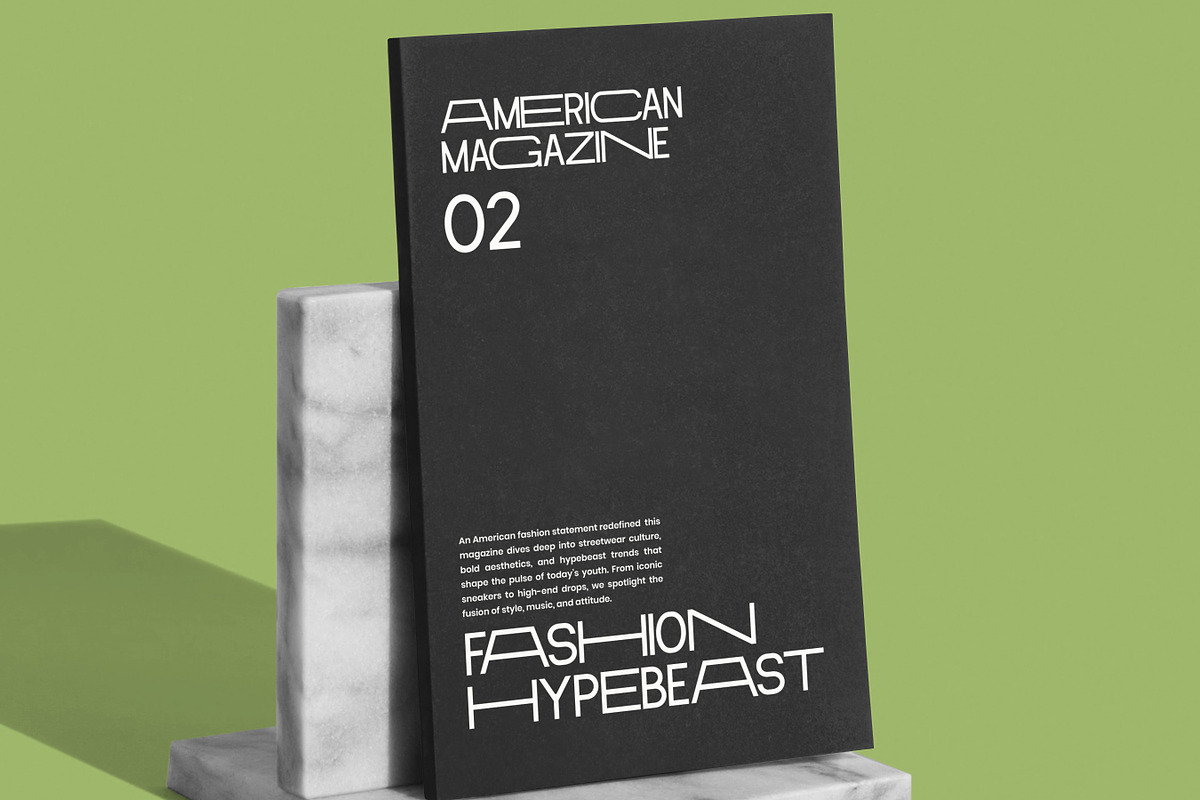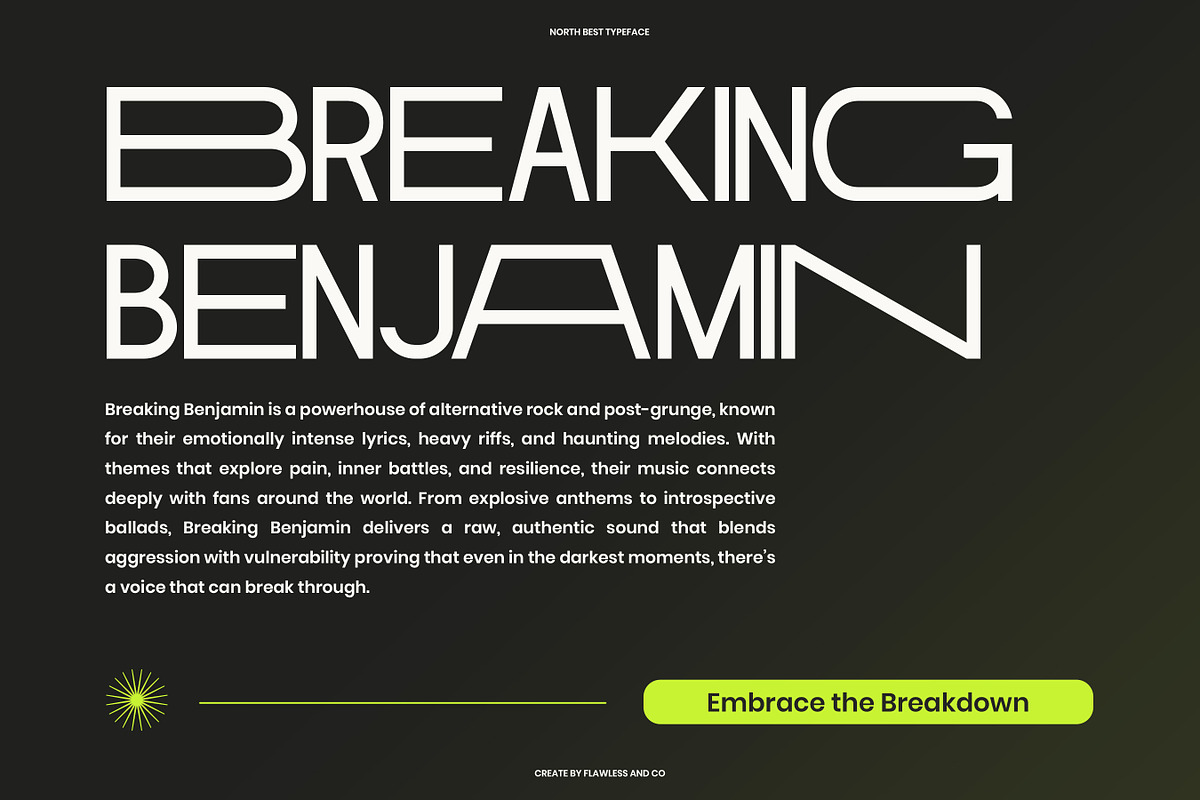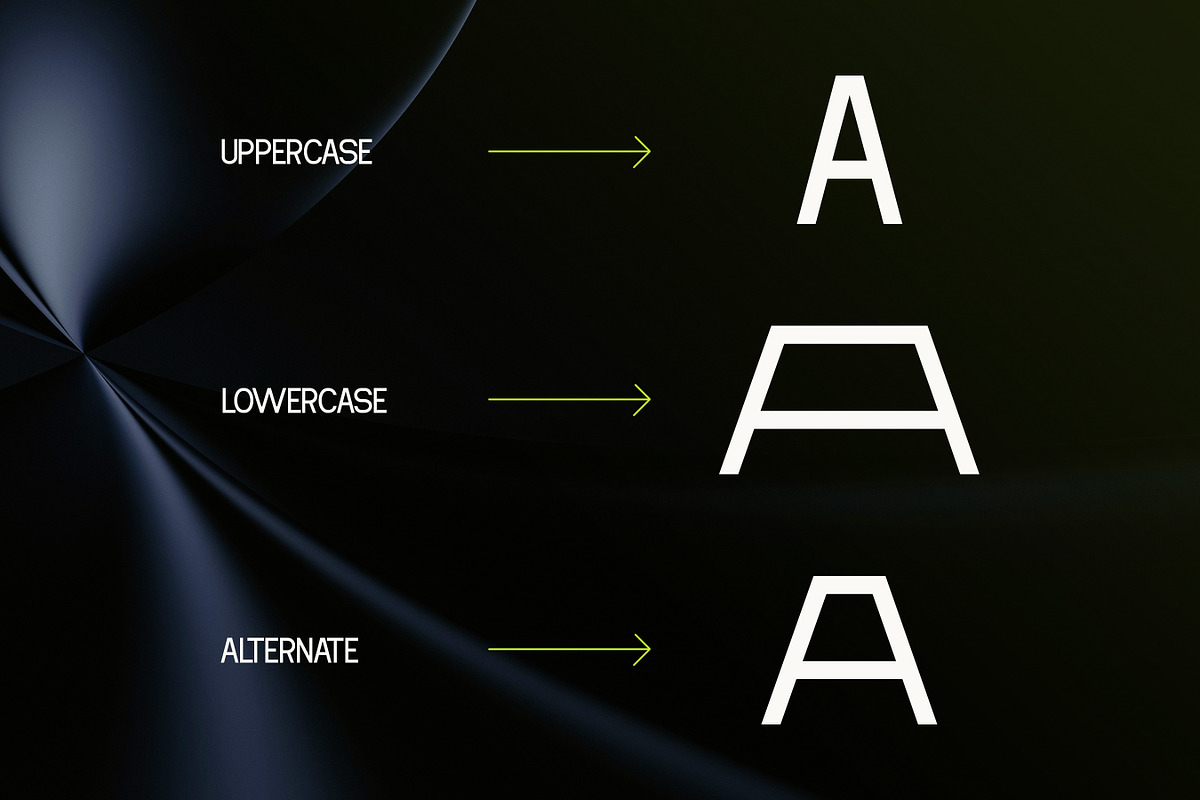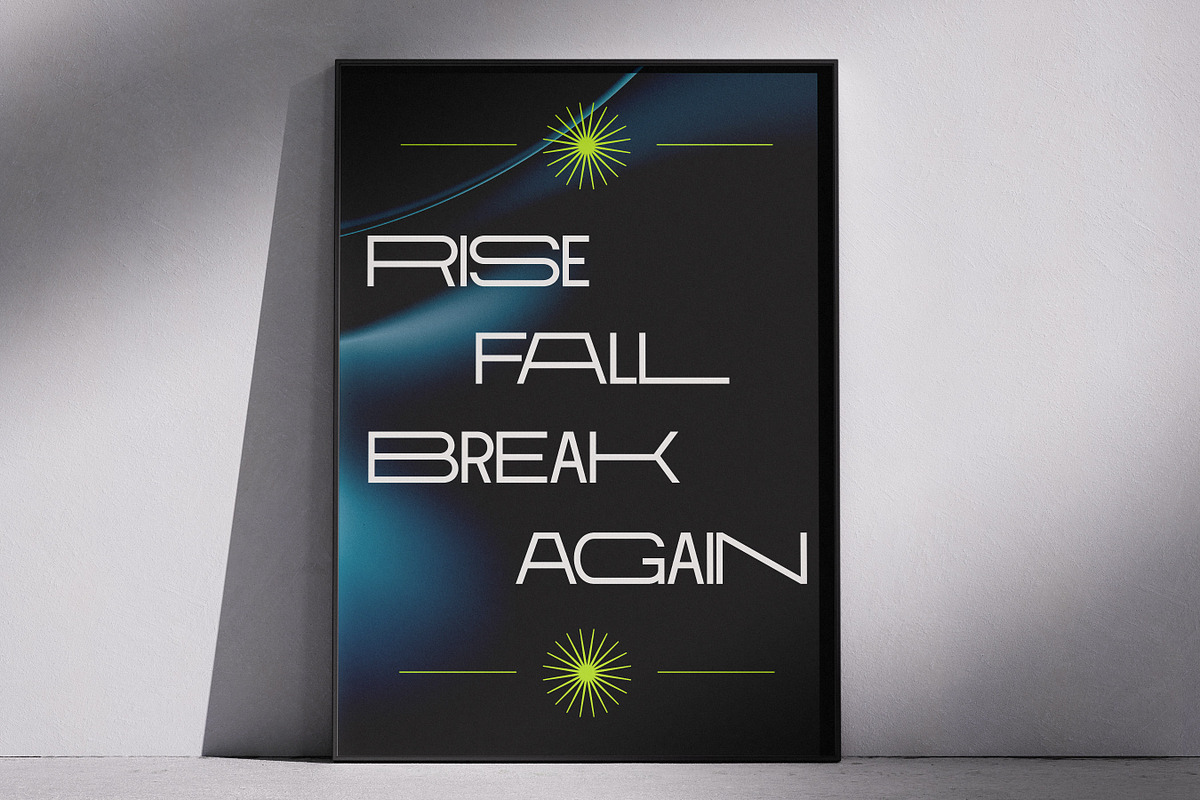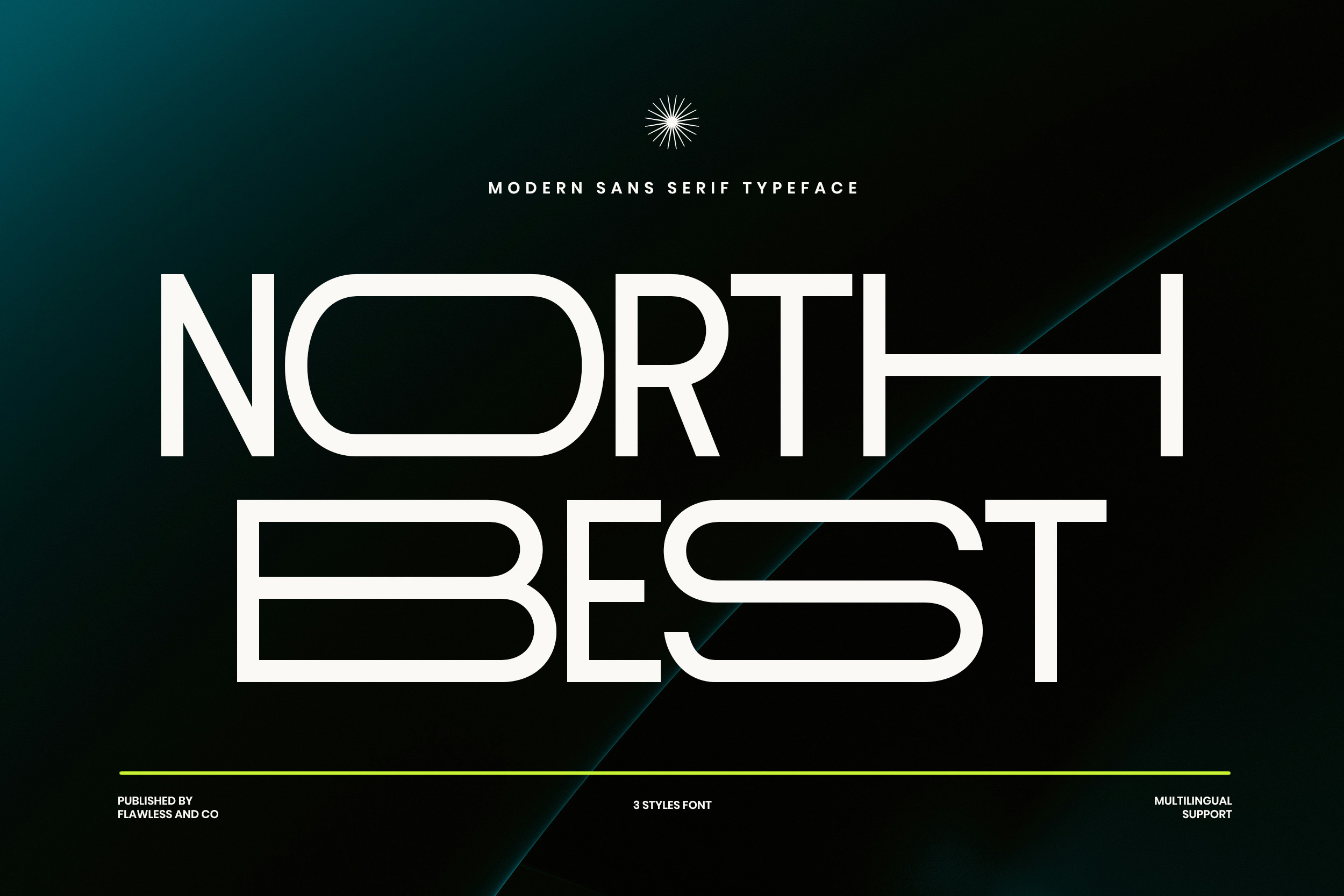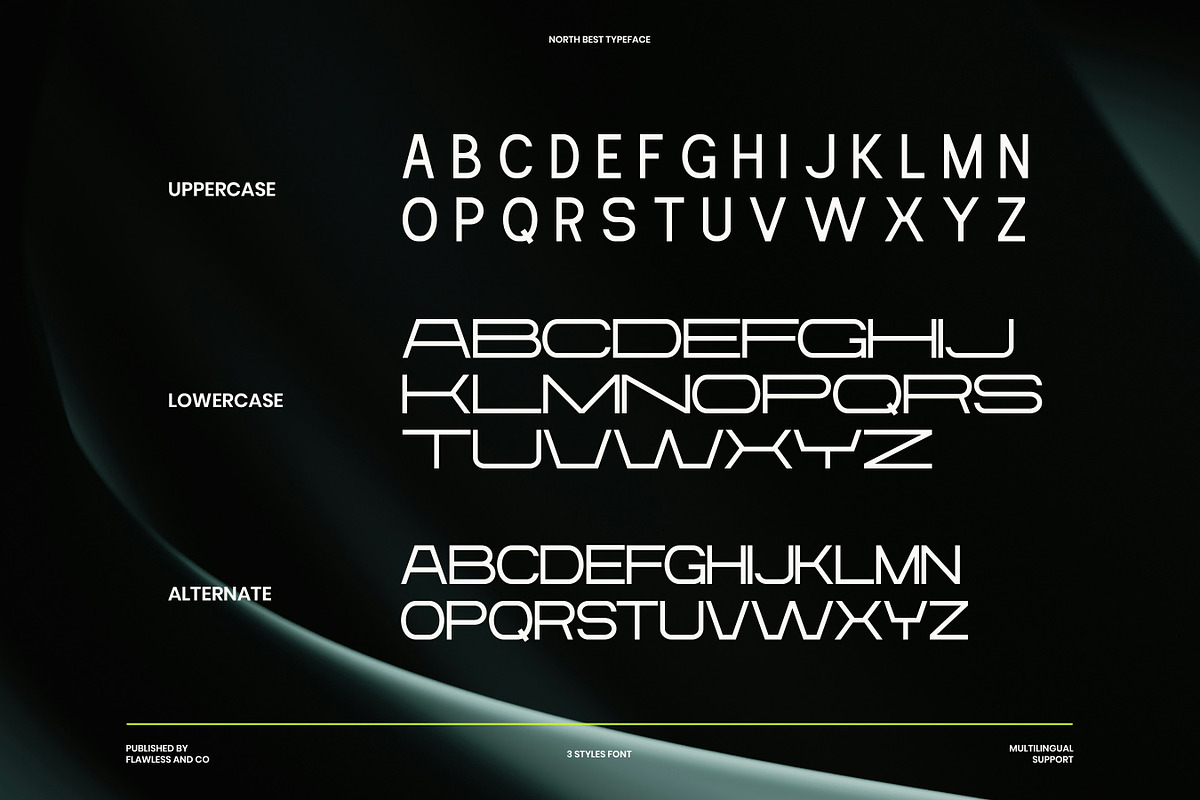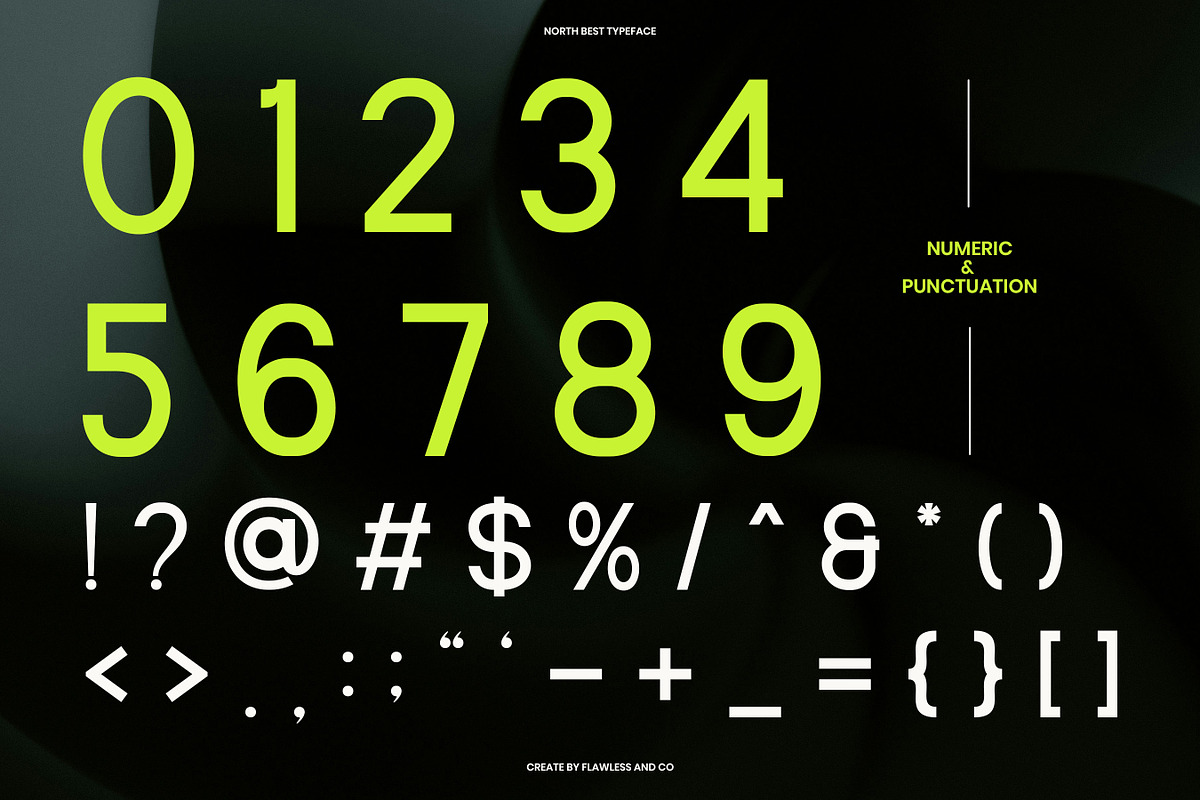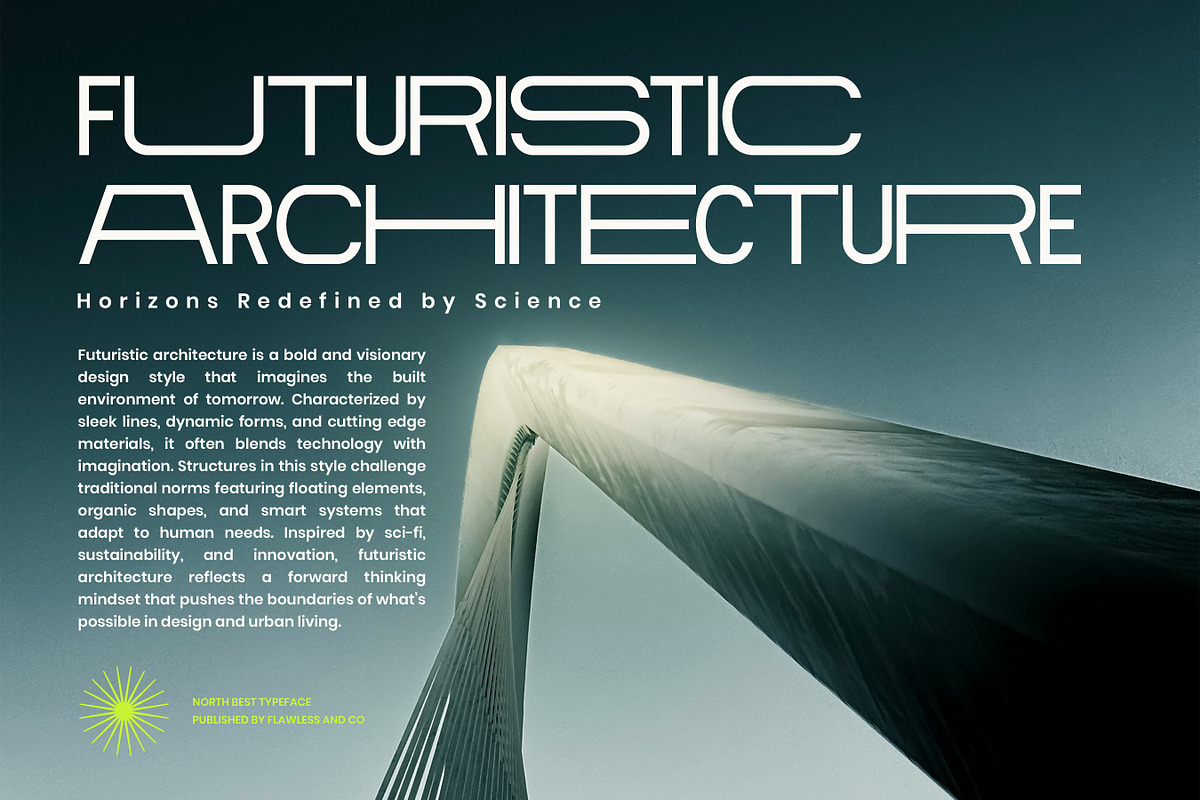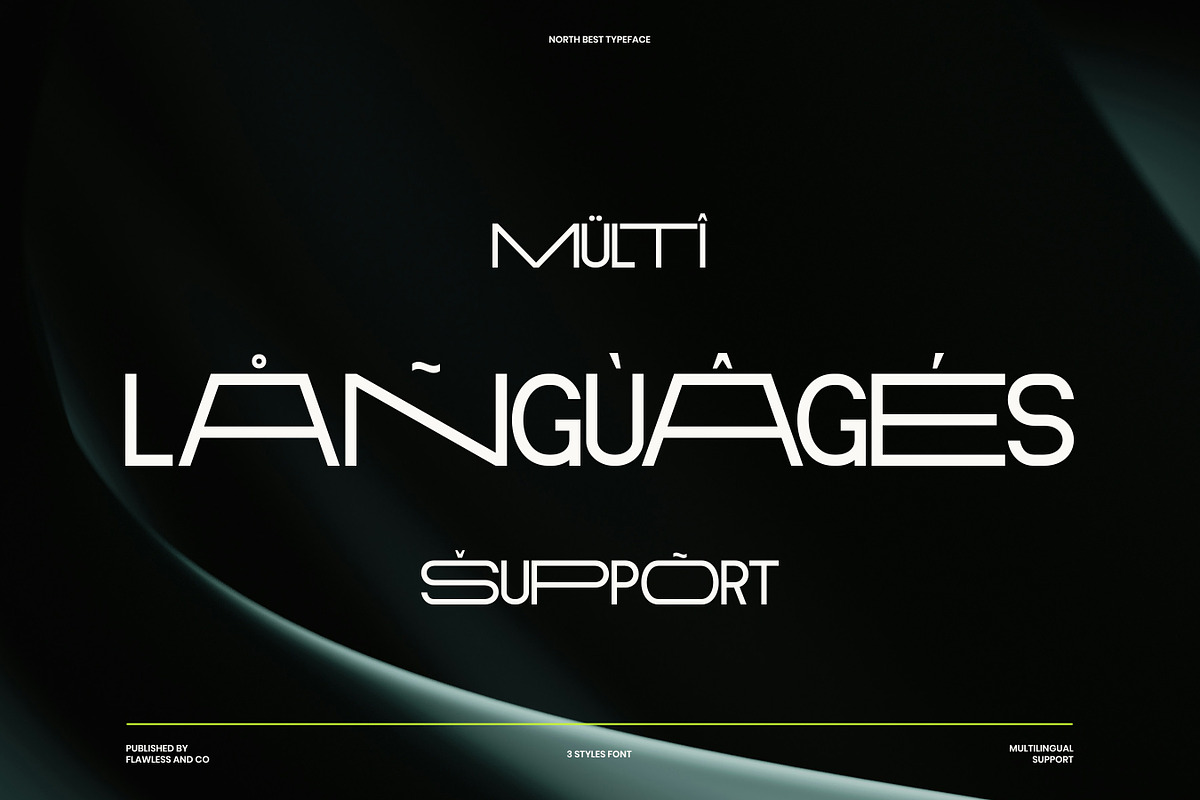
Northbest - Sans Serif Typeface Font
Northbest – Modern Sans Serif Typeface
Northbest is a modern sans serif font that blends minimalism with bold futuristic style. Designed with clean lines, geometric shapes, and sleek proportions, it’s the perfect choice for projects that demand sophistication and modern elegance. With its versatile design, Northbest works seamlessly across branding, editorial layouts, logos, fashion projects, posters, and digital interfaces. Available in 3 unique styles with multilingual support, Northbest provides creative freedom while maintaining a strong, professional aesthetic. Whether you’re creating striking headlines or refined branding, this typeface delivers impact with timeless modernity.
Who Should Use Northbest?
Northbest is designed for creatives, brands, and professionals who want to highlight modernity, clarity, and timeless style in their projects. It’s the perfect font for:
Designers seeking a clean and bold sans serif for branding Businesses that want a professional yet stylish visual identity Fashion and lifestyle brands looking for sleek, modern typography Creative agencies in need of versatile and impactful typefaces Digital creators and UI/UX designers aiming for readability and elegance
A Must-Have Font for Brand and Logo Creators and Designers
Northbest is an essential font for brand and logo creators who value modern design and strong visual impact. With its bold yet clean sans serif style, it brings professionalism, clarity, and confidence to every project. Whether you’re crafting a timeless brand identity, designing sleek packaging, or creating powerful headlines, Northbest ensures your work stands out with elegance and authority.
Why Choose Northbest for Brand and Logo Projects?
Northbest is designed to give your brand a modern and professional edge. Its clean lines and balanced structure make it perfect for creating logos that are bold, memorable, and versatile across all platforms. Whether used in corporate branding, product packaging, or digital media, Northbest ensures your designs communicate strength, clarity, and sophistication. Choosing Northbest means choosing a font that elevates your brand identity and leaves a lasting impression.
Suitable For:
- Brand identities and professional logo design
- Business and corporate branding projects
- Product packaging and modern label design
- Social media graphics and marketing materials
- Editorial layouts and clean magazine design
- Website headers, UI/UX, and digital branding